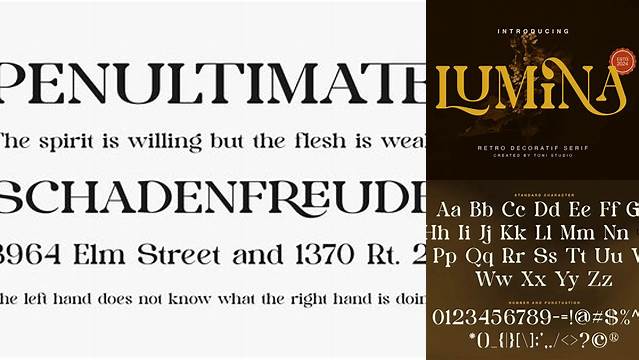
Lumina Black Font: Free Download & Usage Guide
Hey guys! Are you on the hunt for a font that can add a touch of elegance and modernity to your designs? Look no further! In this article, we're diving deep into the world of Lumina Black font, a sleek and versatile typeface that's been making waves in the design community. We'll explore what makes Lumina Black so special, where you can find it for free download, and how to best utilize it in your projects. Whether you're a seasoned designer or just starting out, this guide will equip you with everything you need to know about this fantastic font. So, buckle up and let's get started!
In the realm of typography, the Lumina Black font emerges as a captivating choice, seamlessly blending contemporary aesthetics with timeless appeal. Its distinctive character set exudes sophistication, making it an ideal selection for a wide array of design applications. From crafting eye-catching headlines and captivating logos to imbuing body text with a touch of elegance, Lumina Black stands as a versatile tool in any designer's arsenal. The font's clean lines and balanced letterforms contribute to its readability, ensuring that your message is conveyed with clarity and impact. Its bold weight commands attention, making it particularly effective for titles and headings, while its subtle curves add a touch of personality, preventing it from feeling sterile or overly formal. Lumina Black's inherent adaptability allows it to seamlessly integrate into diverse design styles, from minimalist and modern to classic and refined. Its versatility extends beyond print materials, as it also shines in digital applications, such as websites, user interfaces, and social media graphics. The font's crisp rendering and legibility on screens make it a reliable choice for ensuring a consistent and professional brand image across all platforms. Its bold presence makes a statement without being overwhelming, allowing your content to take center stage while still benefiting from the font's aesthetic enhancements. This balance between functionality and visual appeal is what sets Lumina Black apart as a font that not only looks great but also enhances the overall user experience. Whether you're designing a website, crafting marketing materials, or simply looking to elevate your personal projects, Lumina Black offers a compelling blend of style and substance that will undoubtedly leave a lasting impression.
So, what exactly makes Lumina Black stand out from the crowd? Let's break it down. First off, its sleek and modern design is a major draw. The clean lines and bold weight give it a contemporary feel, making it perfect for projects that need a touch of sophistication. But it's not just about looks; Lumina Black is also incredibly versatile. It works beautifully for headlines, logos, and even body text, thanks to its excellent readability. This versatility makes it a valuable asset for designers working on a wide range of projects, from branding to web design and beyond. Imagine you're working on a website for a tech startup; Lumina Black would be an excellent choice for the headings, giving the site a modern and professional look. Or, if you're designing a logo for a luxury brand, its elegant appearance can help convey a sense of quality and sophistication. Its adaptability doesn't stop there; Lumina Black also plays well with other fonts, allowing you to create interesting and dynamic typography combinations. Whether you pair it with a classic serif for a touch of contrast or a clean sans-serif for a cohesive modern look, Lumina Black can hold its own and enhance the overall design. This flexibility makes it a go-to choice for designers who want a font that can adapt to different styles and contexts. Plus, the availability of Lumina Black for free download makes it accessible to everyone, from professional designers to hobbyists. This democratization of design resources is crucial for fostering creativity and innovation, and Lumina Black is a prime example of a high-quality font that's available to all. Its combination of style, versatility, and accessibility makes it a truly special font that deserves a place in every designer's toolkit.
In the design world, the Lumina Black font carves a distinct niche for itself through a combination of aesthetic appeal and practical functionality. Its clean, contemporary design makes it a standout choice for projects aiming for a modern and sophisticated look. The bold weight of the font commands attention, making it perfect for headlines and titles, ensuring that your message is conveyed with impact. However, what truly sets Lumina Black apart is its versatility. Unlike some fonts that are limited to specific applications, Lumina Black seamlessly adapts to various design contexts. It works equally well for branding materials, web design, and print publications, making it a valuable asset for designers working on diverse projects. The font's legibility is another key factor contributing to its special status. While its bold weight makes it striking, the letterforms are carefully crafted to maintain clarity, even in smaller sizes. This ensures that your text remains readable and engaging, whether it's displayed on a screen or printed on paper. The adaptability of Lumina Black extends to its compatibility with other fonts. It pairs effortlessly with a range of typefaces, allowing designers to create visually dynamic and harmonious compositions. Whether you opt for a classic serif to add a touch of tradition or a clean sans-serif for a modern contrast, Lumina Black integrates seamlessly into your design palette. Furthermore, the availability of Lumina Black for free download democratizes access to high-quality typography. This means that designers of all levels, from seasoned professionals to aspiring creatives, can leverage its unique qualities to enhance their work. The font's blend of style, versatility, legibility, and accessibility makes it a truly exceptional typeface that deserves a prominent place in any designer's toolkit.
Alright, you've got Lumina Black installed and ready to go. Now, let's talk about how to actually use it in your designs. As we've mentioned, Lumina Black is incredibly versatile, but there are a few tips and tricks to keep in mind to make the most of its unique qualities. First and foremost, consider the overall tone and style of your project. Lumina Black's modern and elegant aesthetic makes it a great fit for a wide range of applications, but it particularly shines in projects that aim for a sophisticated or contemporary feel. Think branding for a high-end fashion brand, a sleek website design, or elegant invitations for a special event. When it comes to typography, Lumina Black works beautifully for headlines and titles. Its bold weight commands attention, making it perfect for drawing the reader's eye and creating a strong visual hierarchy. However, it can also be used effectively for body text, especially in shorter paragraphs or captions, thanks to its excellent readability. One of the key principles of good typography is contrast, and Lumina Black offers plenty of opportunities to play with this. Try pairing it with a lighter weight sans-serif for a clean and modern look, or with a classic serif font for a more traditional feel. For example, you could use Lumina Black for the headings on your website and then use a font like Open Sans or Roboto for the body text. This creates a visual distinction that helps guide the reader through the content. Another important consideration is the size and spacing of your text. Lumina Black's bold weight means that it can sometimes appear a bit heavy, so it's essential to pay attention to kerning and tracking to ensure that the letters are properly spaced. You may also want to experiment with different font sizes to find the right balance between readability and visual impact. Ultimately, the best way to learn how to use Lumina Black effectively is to experiment and see what works best for your specific project. Don't be afraid to try different combinations and arrangements until you find something that feels just right. With its versatility and elegance, Lumina Black is a fantastic tool for any designer looking to add a touch of sophistication to their work.
Incorporating the Lumina Black font into your designs can elevate their aesthetic appeal and professional polish. Its versatility lends itself to a wide spectrum of applications, but understanding how to harness its unique qualities is key to maximizing its impact. To begin, consider the overall design context and the message you aim to convey. Lumina Black's modern and elegant character makes it particularly well-suited for projects that exude sophistication and contemporary flair. Think of branding materials for luxury brands, website designs for tech startups, or marketing collateral for high-end products. In these scenarios, Lumina Black's clean lines and bold presence can effectively communicate a sense of quality, innovation, and style. When it comes to typography, Lumina Black truly shines as a headline and title font. Its commanding weight immediately draws the viewer's attention, creating a strong focal point and establishing a clear visual hierarchy. However, its legibility also makes it a viable option for body text, particularly in shorter blocks or captions. This flexibility allows you to maintain a consistent typographic style throughout your design while leveraging Lumina Black's distinctive character. A fundamental principle of effective typography is contrast, and Lumina Black provides ample opportunities to explore this concept. Pairing it with contrasting fonts can create visual interest and enhance the overall readability of your design. For instance, you might combine Lumina Black headlines with a lighter weight sans-serif for body text, achieving a clean and modern look. Alternatively, pairing it with a classic serif font can evoke a sense of timeless elegance. Experimenting with different font pairings is a great way to discover the unique personality of Lumina Black and how it interacts with other typefaces. Beyond font pairings, paying attention to the size and spacing of your text is crucial. Lumina Black's boldness can sometimes make it appear visually heavy, so careful attention to kerning (the spacing between individual letters) and tracking (the overall spacing between letters in a word or line) is essential. Adjusting these settings can prevent your text from looking cramped or cluttered, ensuring optimal readability and visual harmony. Furthermore, experiment with different font sizes to achieve the right balance between prominence and legibility. While a larger font size can amplify Lumina Black's impact, it's important to ensure that the text remains easy to read and doesn't overwhelm the overall design. Ultimately, the most effective way to master the use of Lumina Black is through experimentation. Don't hesitate to try different combinations, arrangements, and stylistic approaches to discover what works best for your specific project. Its versatility and elegance make it a valuable tool for any designer seeking to add a touch of sophistication to their creations.
In conclusion, the Lumina Black font stands as a testament to the power of typography in shaping visual communication. Its elegant and modern design makes it a versatile asset for designers seeking to add a touch of sophistication to their projects. Throughout this guide, we've explored the font's unique qualities, its suitability for various design contexts, and the importance of sourcing it from reputable platforms for free download. We've also delved into practical tips for effectively incorporating Lumina Black into your designs, emphasizing the significance of contrast, spacing, and font pairings. The key takeaway is that Lumina Black is not just a font; it's a design tool that can enhance the overall impact and aesthetic appeal of your work. Its clean lines, bold presence, and inherent legibility make it an ideal choice for headlines, titles, and even body text in certain applications. Whether you're designing a website, crafting marketing materials, or simply looking to elevate your personal projects, Lumina Black offers a compelling blend of style and functionality. By adhering to the guidelines outlined in this article, you can confidently download, install, and utilize Lumina Black, unlocking its potential to transform your designs. Remember to always prioritize safety and legality by downloading from trusted sources and respecting the licensing terms. With Lumina Black in your font arsenal, you're well-equipped to create visually stunning and impactful designs that leave a lasting impression. Its versatility and timeless appeal ensure that it will remain a valuable resource for designers for years to come, making it a worthy investment of your time and creative energy.